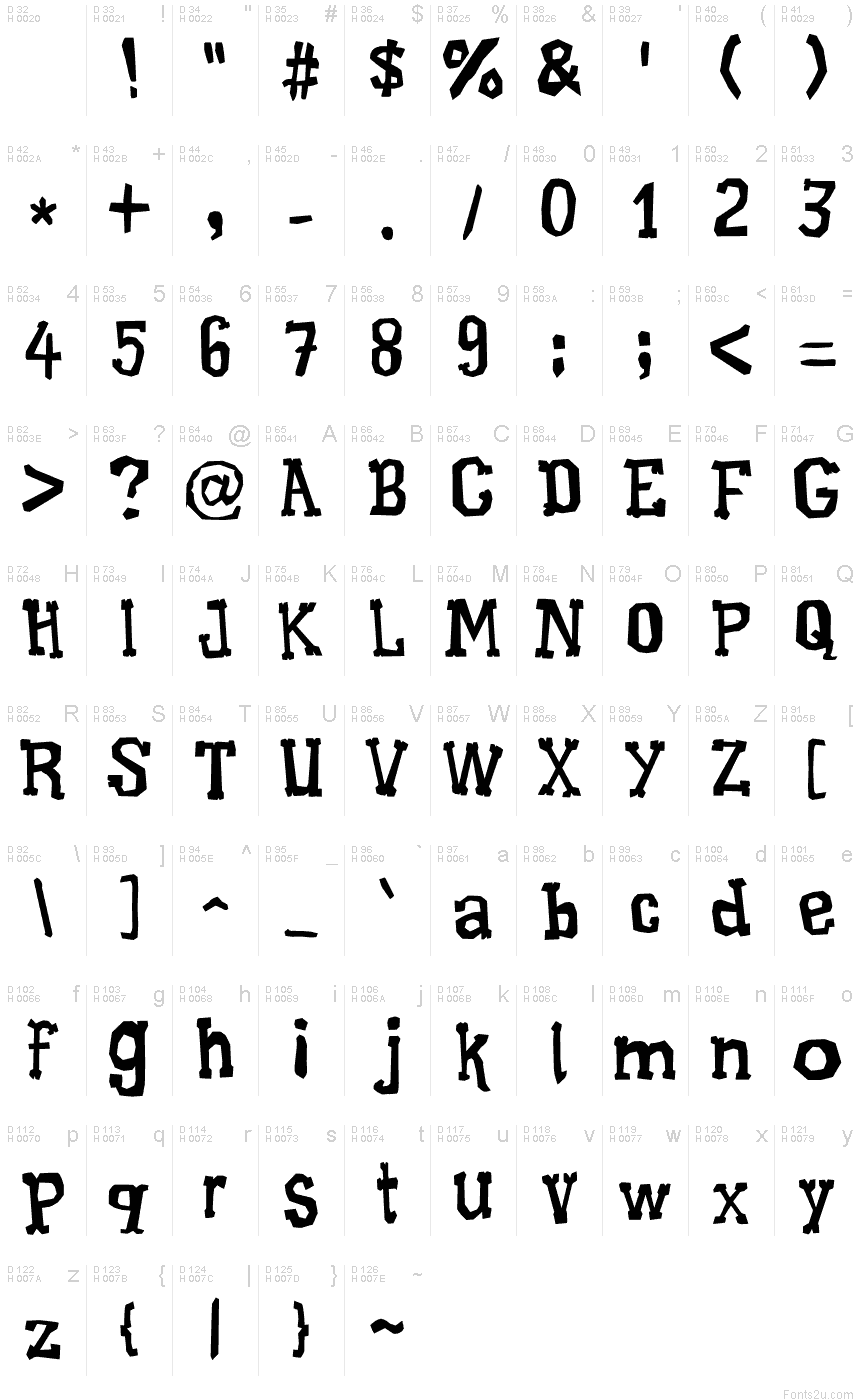
Xilo Galdino 2 by Galdino Otten is a free rough-hewn display font with the blunt, uneven shapes of hand-cut lettering. Its jagged edges look deliberately improvised. Stroke widths shift sharply, and crooked curves and angular joins give each letter a raw carved silhouette.
Brands built around underground music, skate culture, or independent art could use it across posters, merchandise, and packaging. The irregular forms can also turn magazine mastheads and feature openers into part of the artwork rather than neutral type.